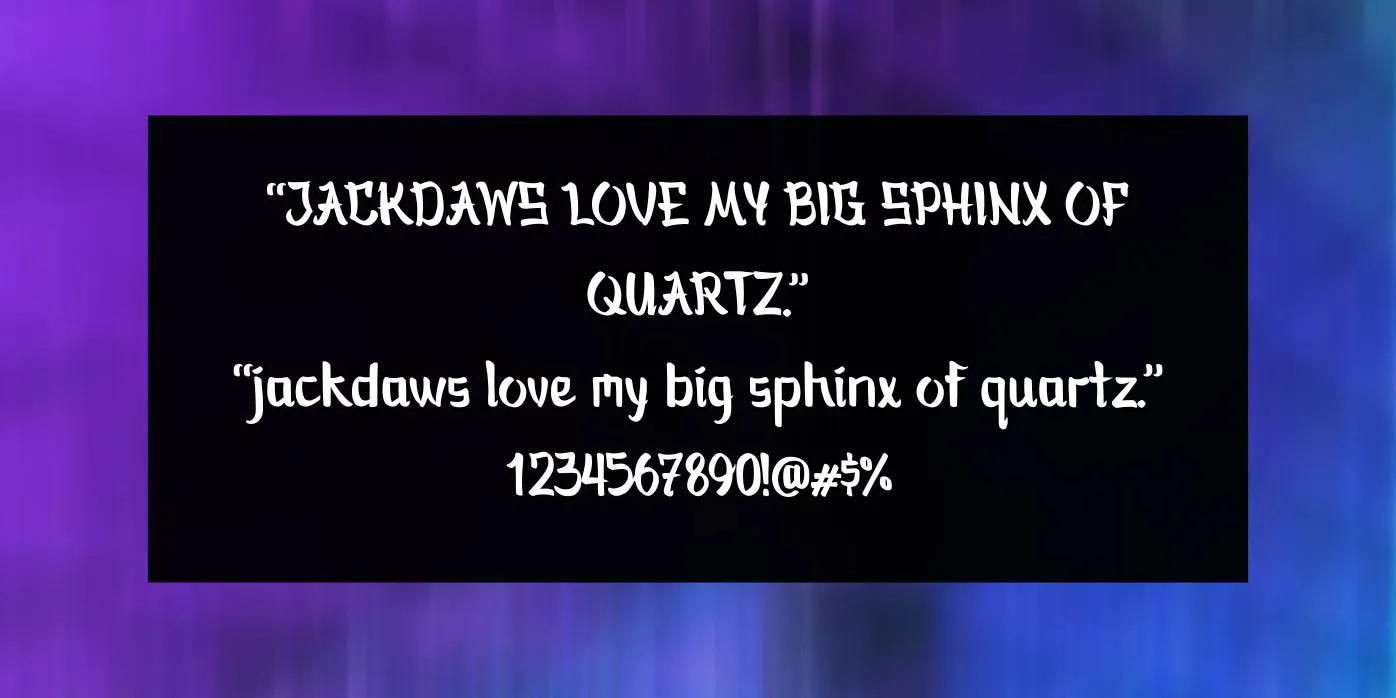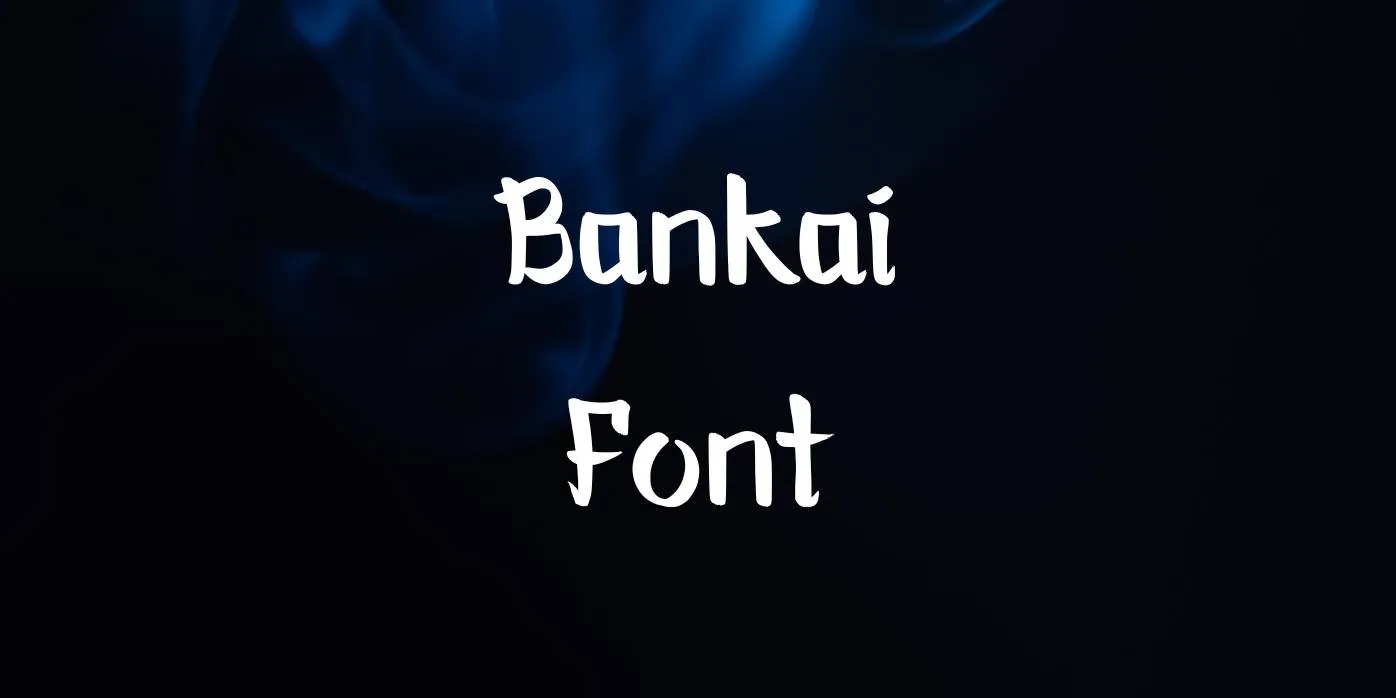
Bankai Font
We discuss detailed information about the interesting typeface Bankai Font. It is a Japanese-type font designed by Allouse Studios and belongs to the fancy texture family. You can use it for different projects. It is a very modern font and is used by many organizations.
It can be used to design projects like banners, posters, and flyers for any brand or organization. To make attractive headlines and titles is a good choice. For product packing and branding purposes looks very attractive and you can use it as well. Website and graphic designs can be used as well in different applications like Adobe Photoshop, CSS, and Canva.